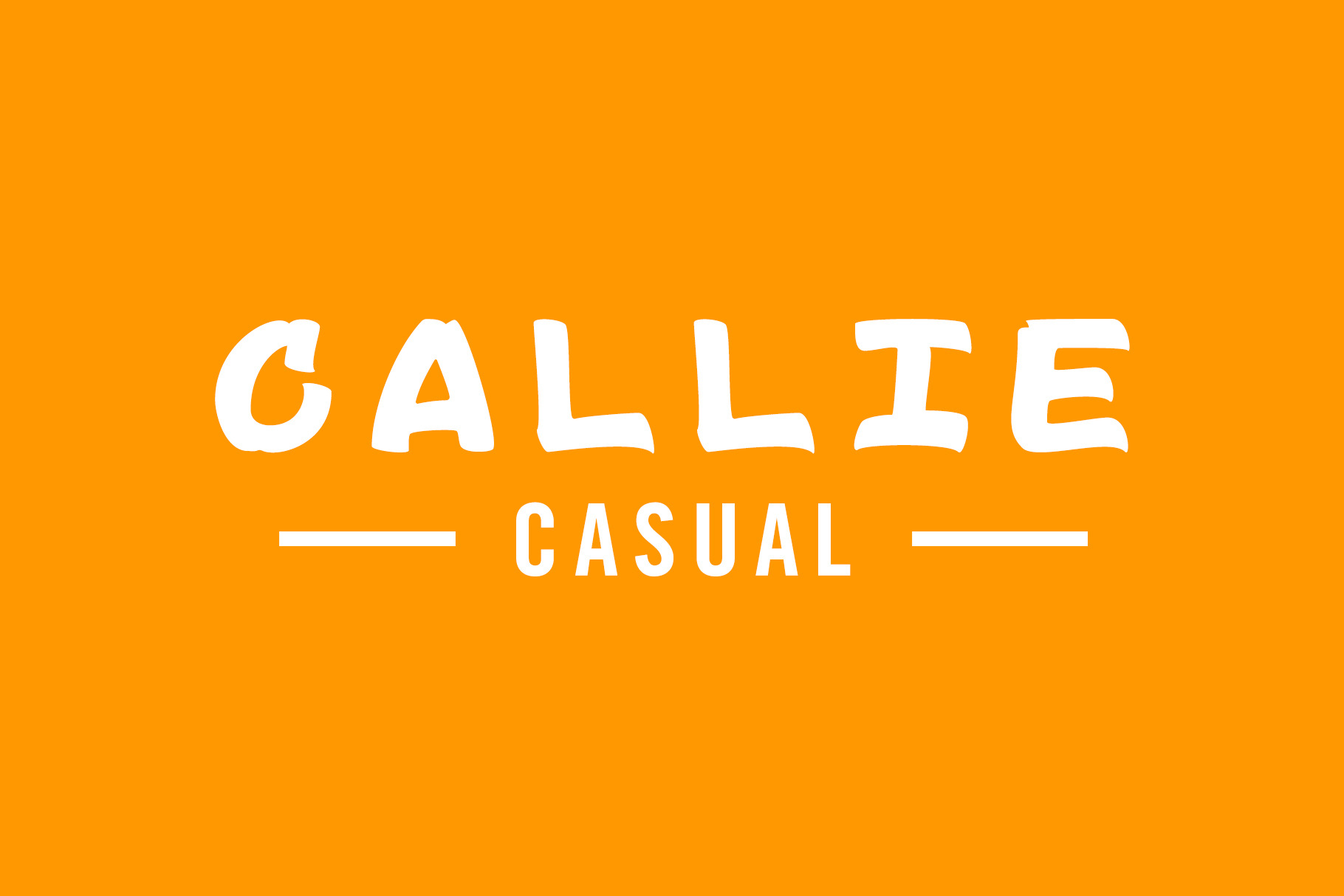
Callie Casual | Sign Font
Introducing Callie Casual!
Make tons of gorgeous typographic designs in a jiffy, just in time for all your Christmas labels, cards and branding too!
A playful new font that can be used for bar menus, book covers, package designs, logos, DIY projects, greeting cards, labels, quotes, posters, wall art, branding, packaging, websites, photo & photography overlays, signs, window art, scrapbooking, tags and so much more!